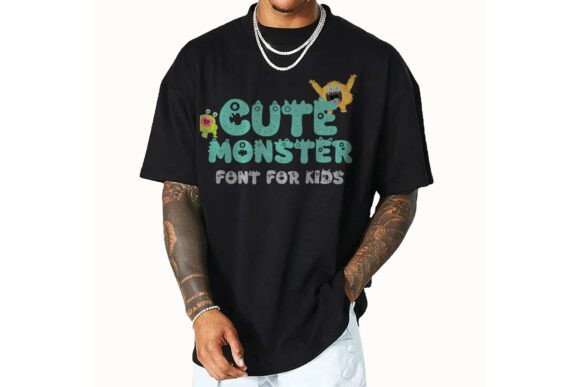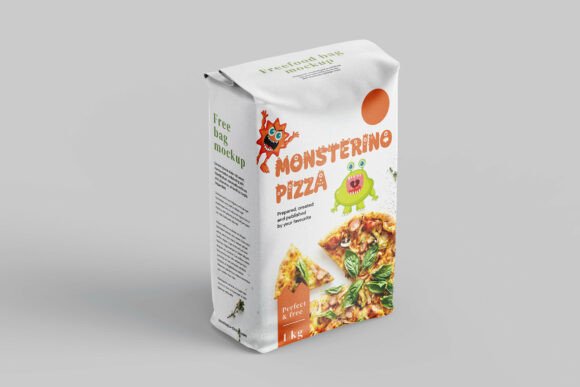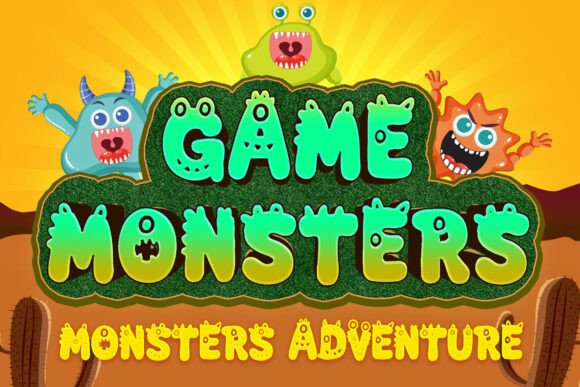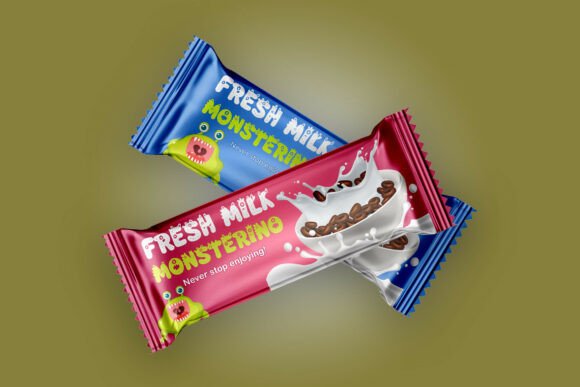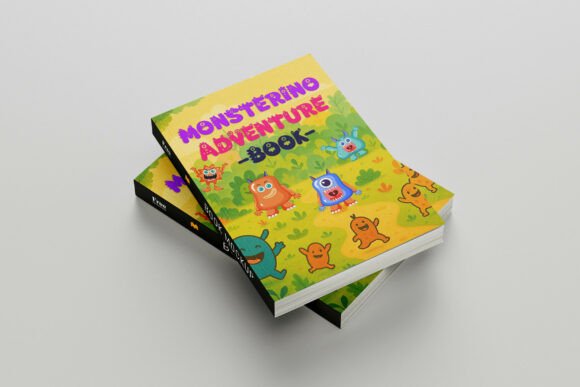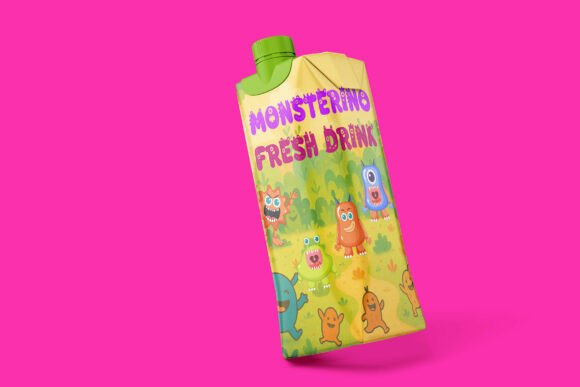
Introduction to Monsterino Kid Font Font
Fonts play a crucial role in design, and the Monsterino Kid Font font is a typeface that brings both character and versatility to any project. Whether you’re working on a branding project, a website, or a print design, the Monsterino Kid Font font offers a unique style that can elevate your work.
| 📌 Font Name | Monsterino Kid Font |
| 👤 Author | artstoreid |
Monsterino is a playful and whimsical display font inspired by adorable monsters and cute aliens—perfect for children’s books, cartoons, games, crafts, classroom fun and creative projects.
Key Features of Monsterino Kid Font Font
Why Choose Monsterino Kid Font Font?
The Monsterino Kid Font font is more than just a typeface – it’s a design tool that helps you communicate your message with style and clarity. Its unique character set and versatile design make it suitable for a wide range of applications, from elegant invitations to bold headlines.
With its carefully crafted letterforms and balanced proportions, the Monsterino Kid Font font ensures readability and visual appeal across all mediums.
What makes Monsterino Kid Font font special?
The Monsterino Kid Font font stands out with its unique design, exceptional readability, and versatility across various design applications.